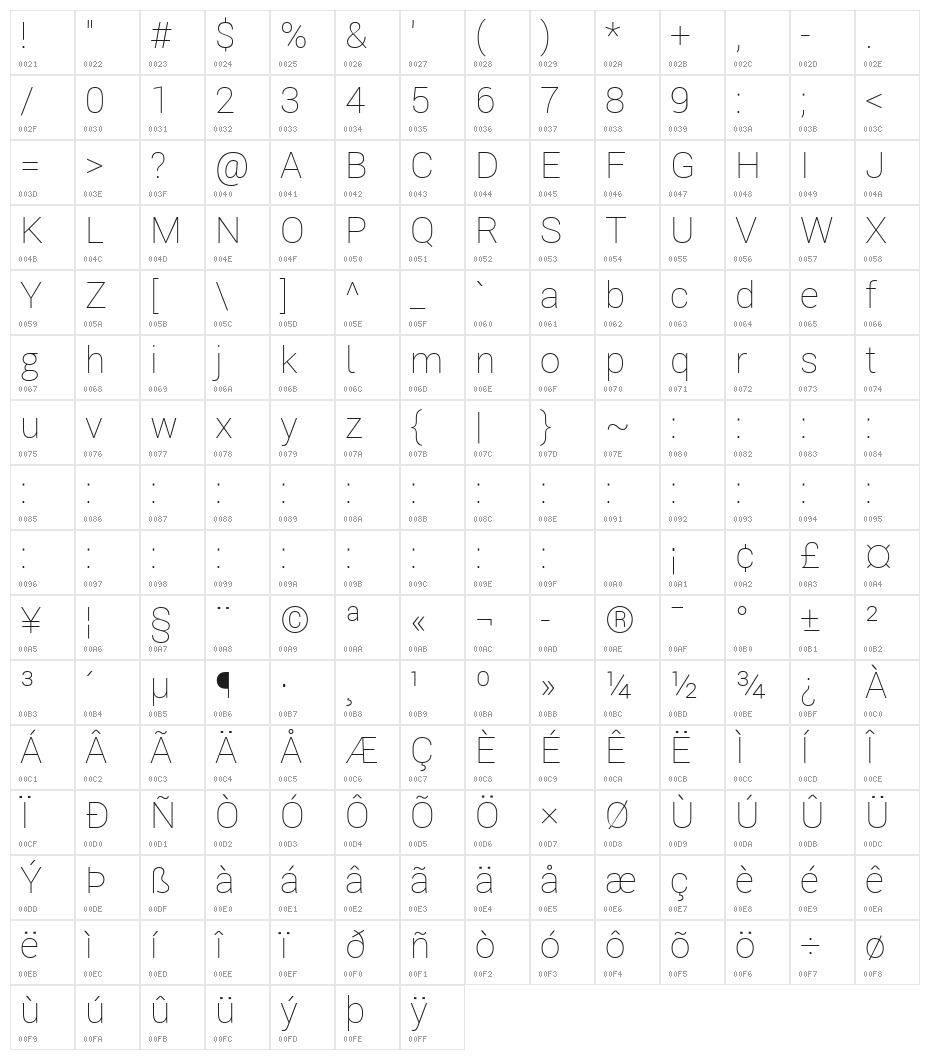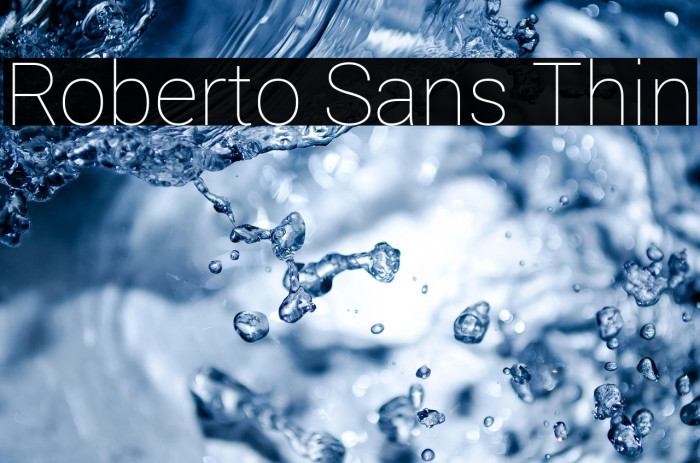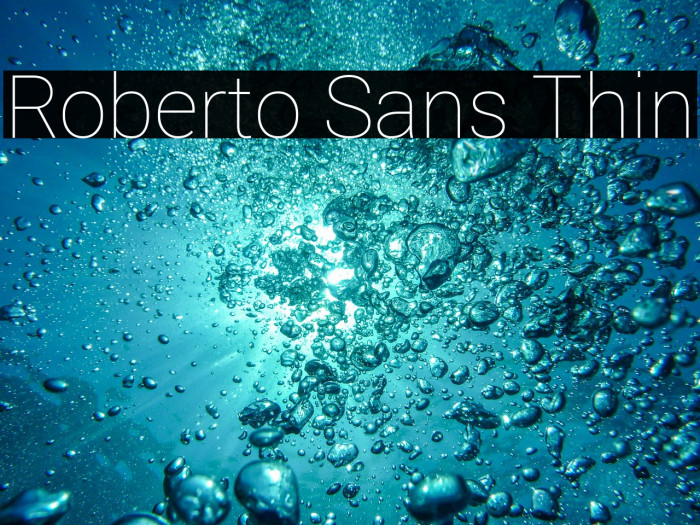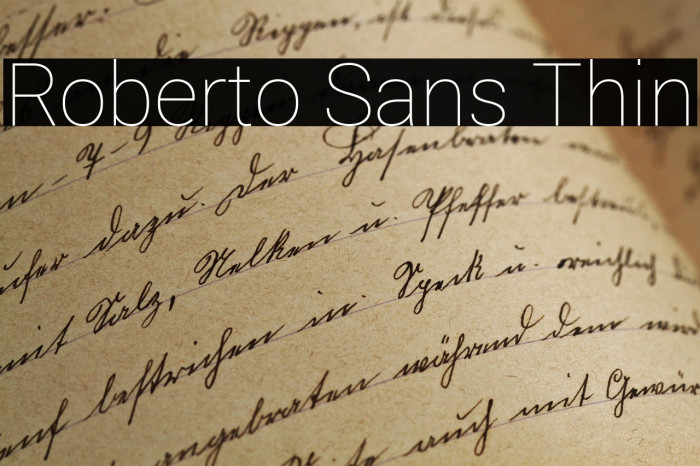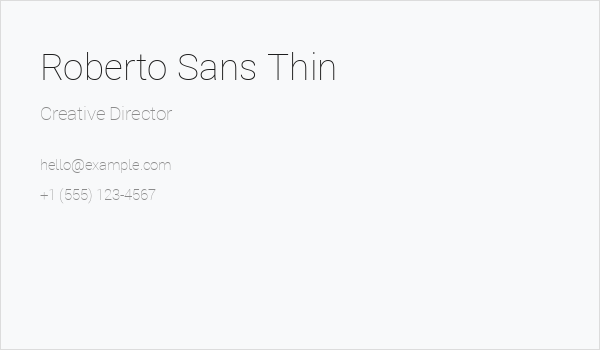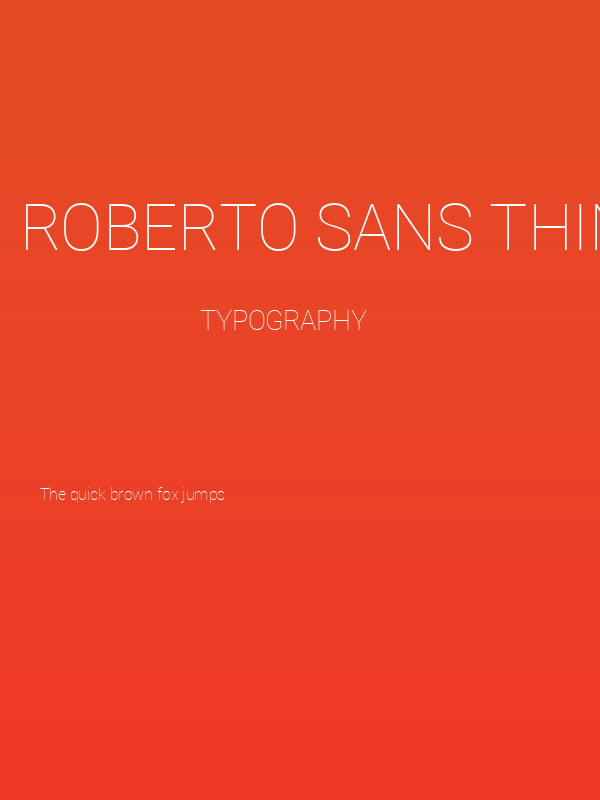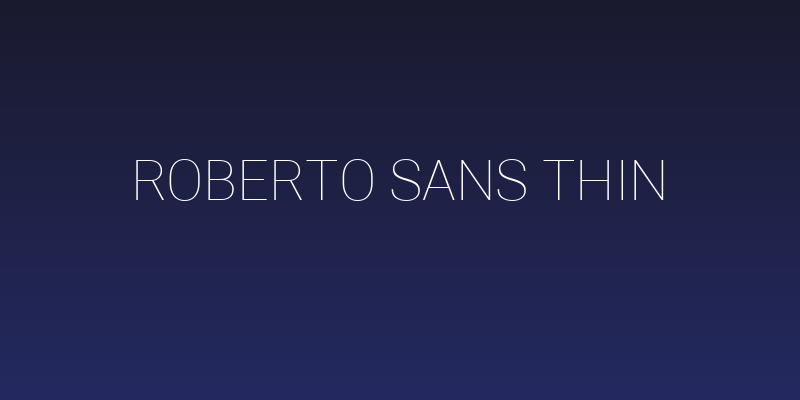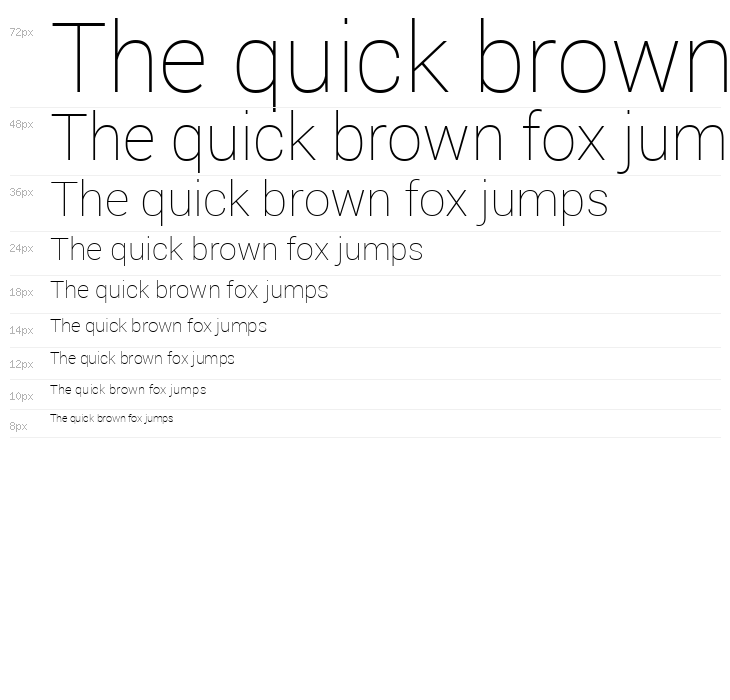
Roberto Sans Thin Font
Roberto Sans Thin Description
This font features a clean and minimalistic design with a focus on simplicity and readability. The characters are evenly spaced, with a consistent stroke width that gives it a modern and sleek appearance. The uppercase and lowercase letters are well-proportioned, maintaining a harmonious balance throughout the alphabet. The numerals are clear and distinct, making them easy to read. Special characters are included, enhancing its versatility for various applications. This font's thin lines and open forms make it ideal for projects that require a contemporary and elegant touch.
| Proposed Projects | Ideal for digital interfaces, branding, minimalist designs, and editorial layouts. |